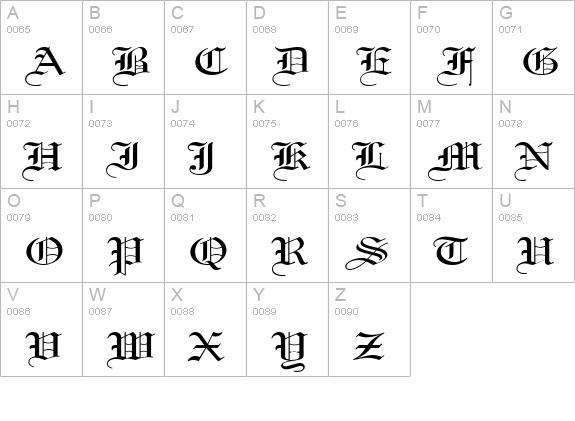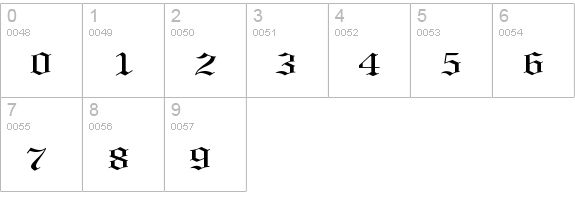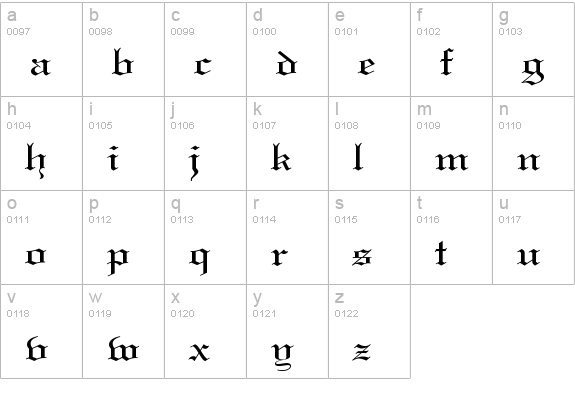
Gothic 57 Wide Normal is the standard, neutral, extended-width variant in the Gothic typeface family \xE2\x80\x94 well suited to general body text, paragraphs, and standard typographic work.
Gothic 57 Wide Normal font is a stunning display typeface that exudes a sense of mystery and elegance. With its bold and intricate design, this font is perfect for creating eye-catching headers, titles, and logos that demand attention. The sharp edges and elaborate details of Gothic 57 Wide Normal give it a unique and distinctive look that sets it apart from other fonts. The best part is that Gothic 57 Wide Normal font is available for free download at FontsMarket.com. This means you can easily access and use this beautiful font for your personal and commercial projects without any cost. Whether you're designing a website, poster, or branding materials, Gothic 57 Wide Normal font will add a touch of sophistication and sophistication to your work. Don't miss out on this amazing opportunity to enhance your designs with this exquisite font!